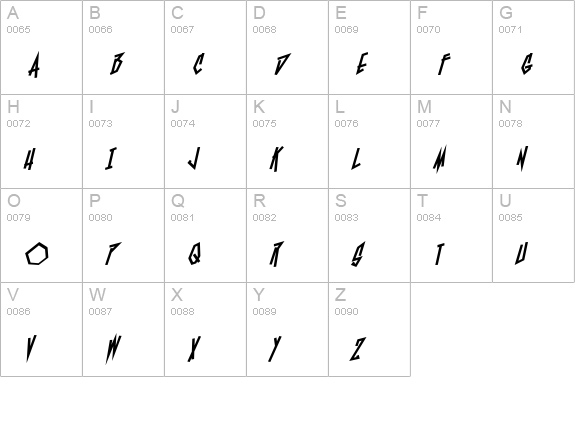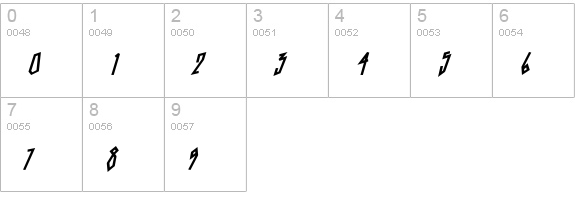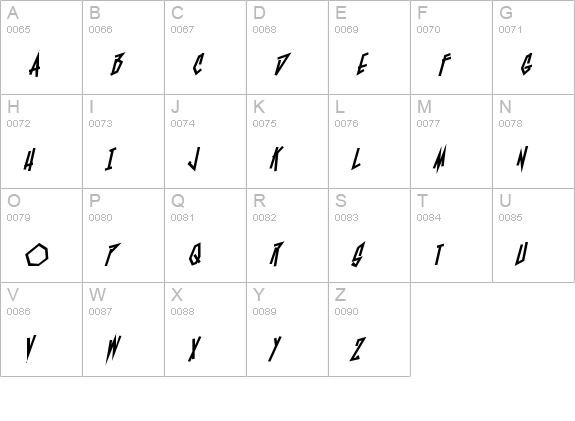
BlamBlam Heavy BB is a heavy, high-impact variant in the BlamBlam typeface family \xE2\x80\x94 well suited to high-impact headlines, posters, and display advertising.
BlamBlam Heavy BB font is a bold and impactful typeface that demands attention with its strong presence and distinctive design. With its thick strokes and sharp edges, this font exudes power and strength, making it perfect for headlines, posters, and other display purposes. What sets BlamBlam Heavy BB font apart is not just its striking appearance, but also the fact that it is available for free! You can easily download this impressive font at FontsMarket.com and use it in your projects without any cost. Whether you're looking to make a statement or add a touch of boldness to your designs, BlamBlam Heavy BB font has got you covered. Don't miss out on this fantastic opportunity to enhance your creations with this eye-catching typeface.